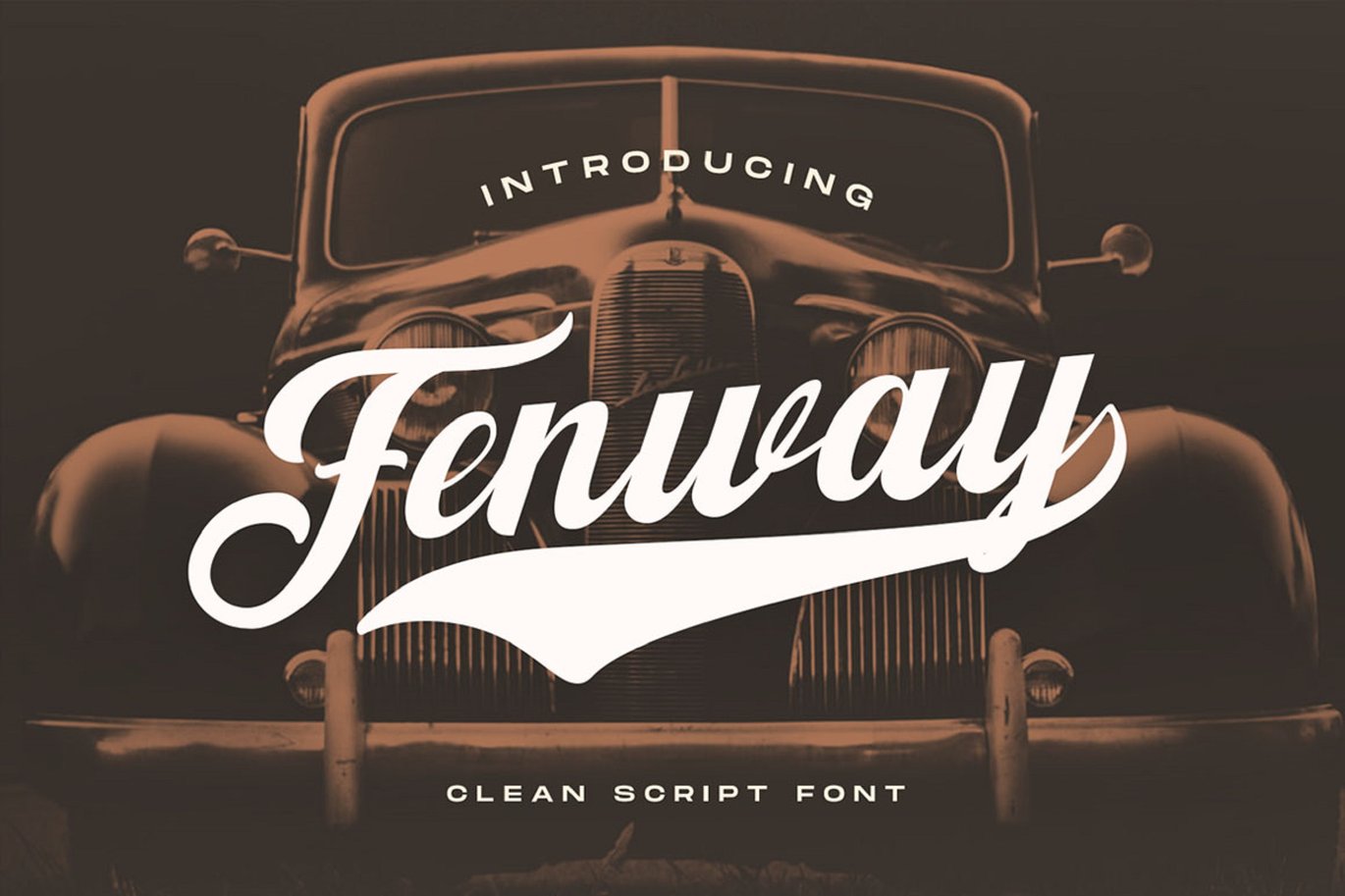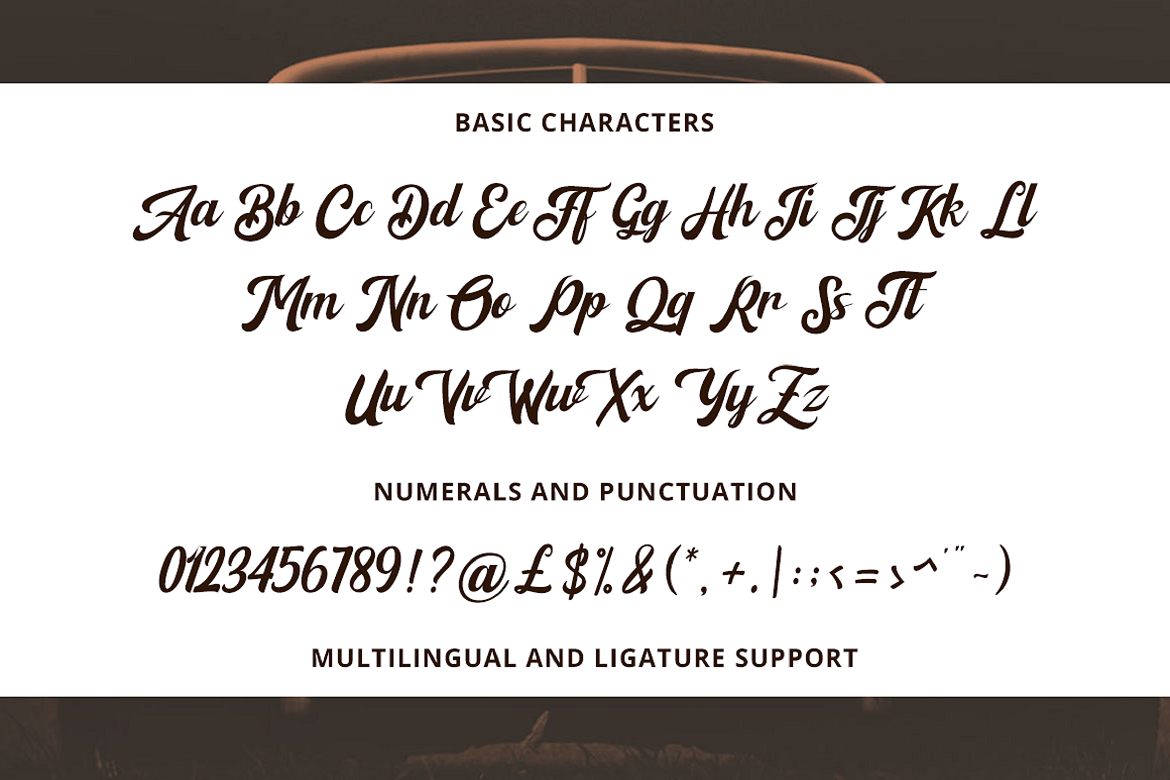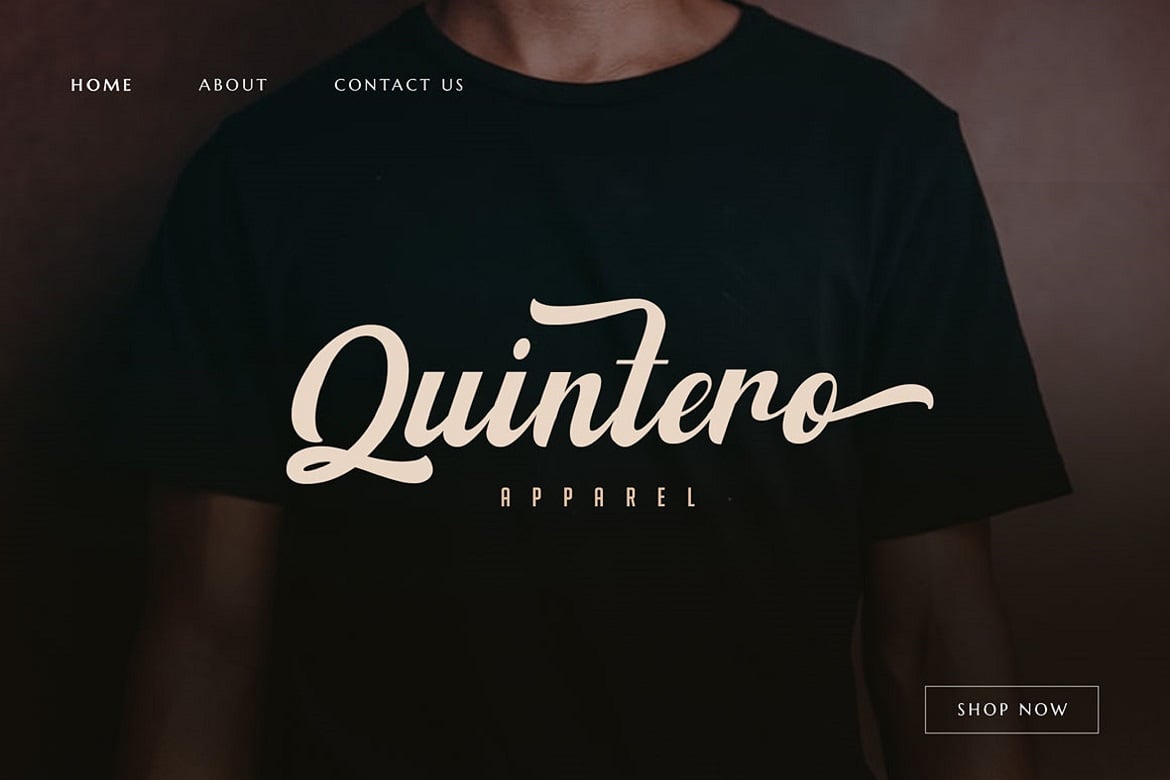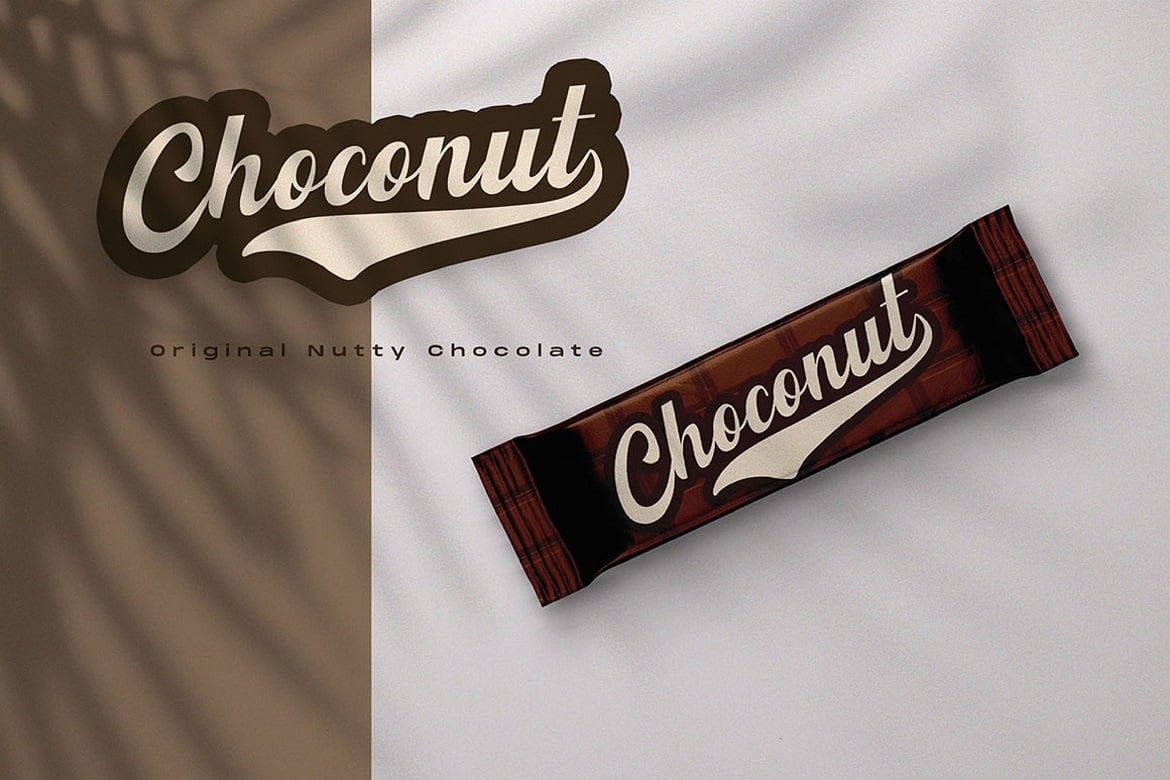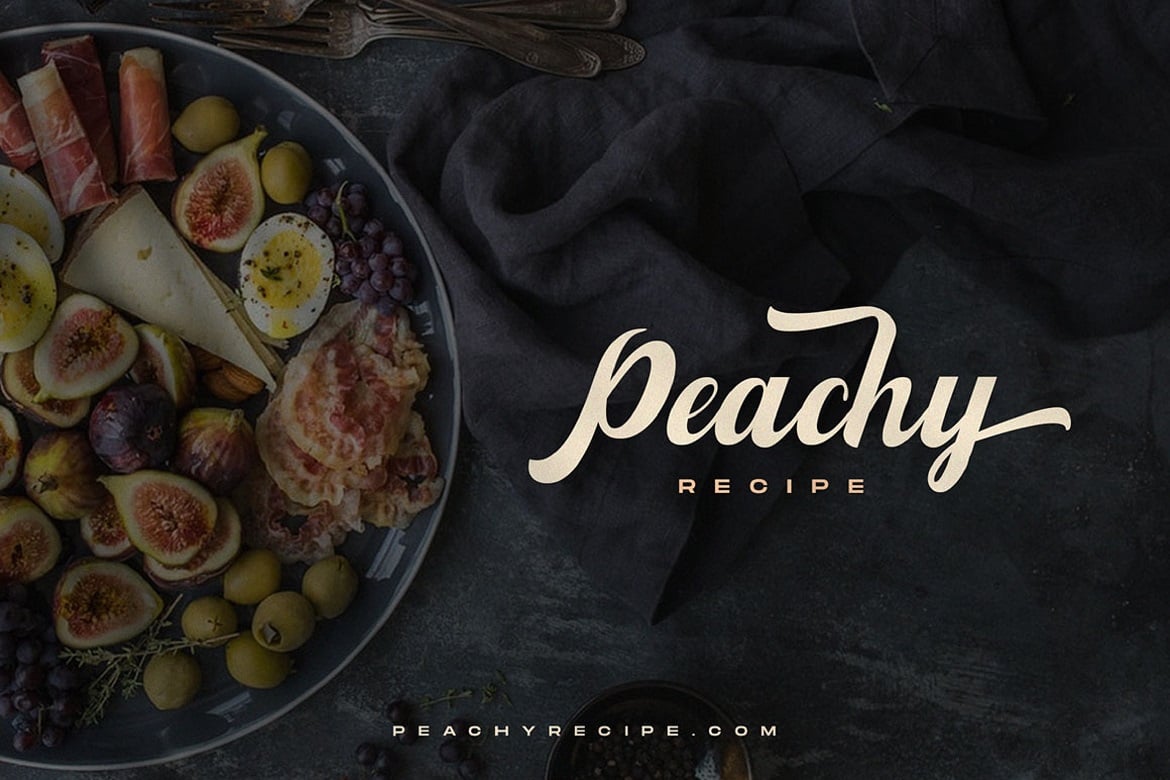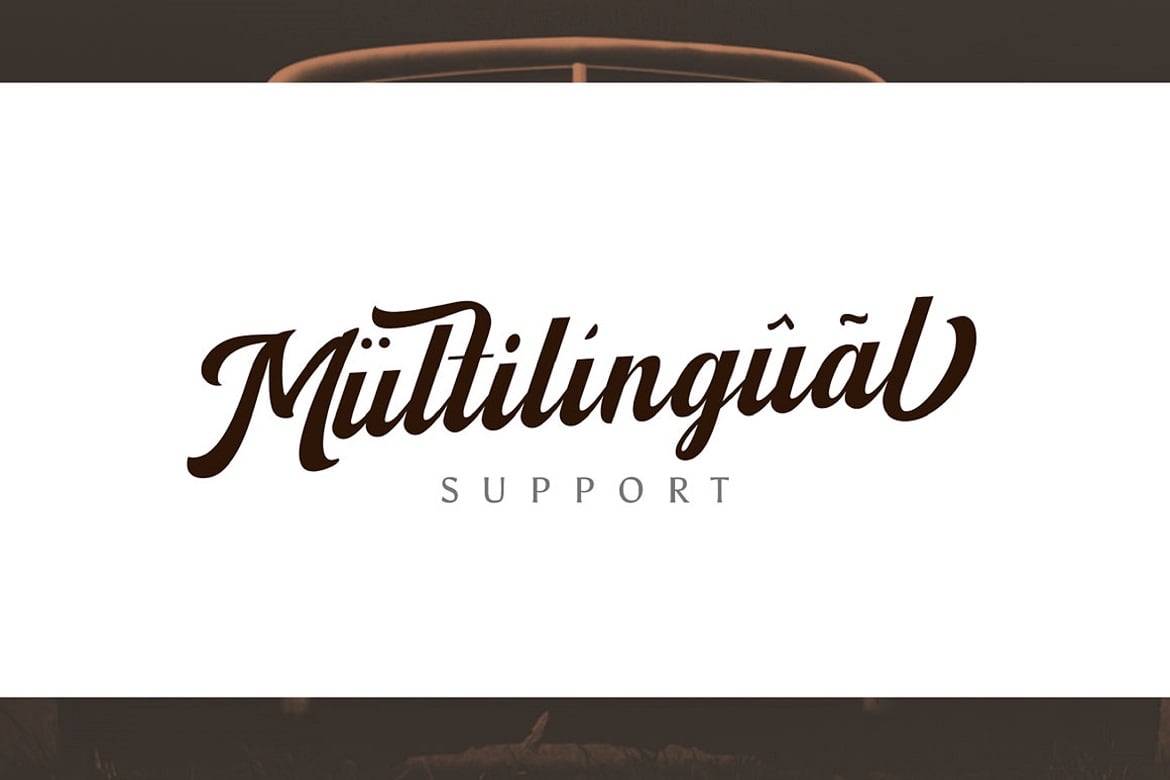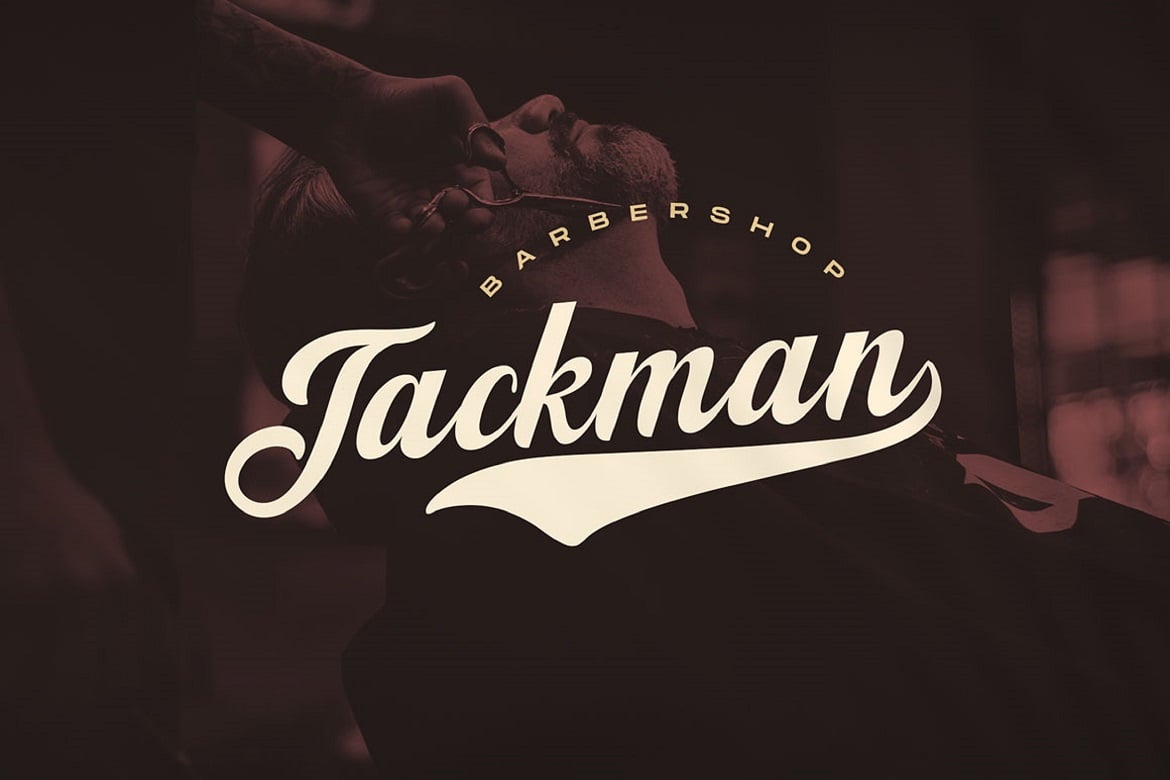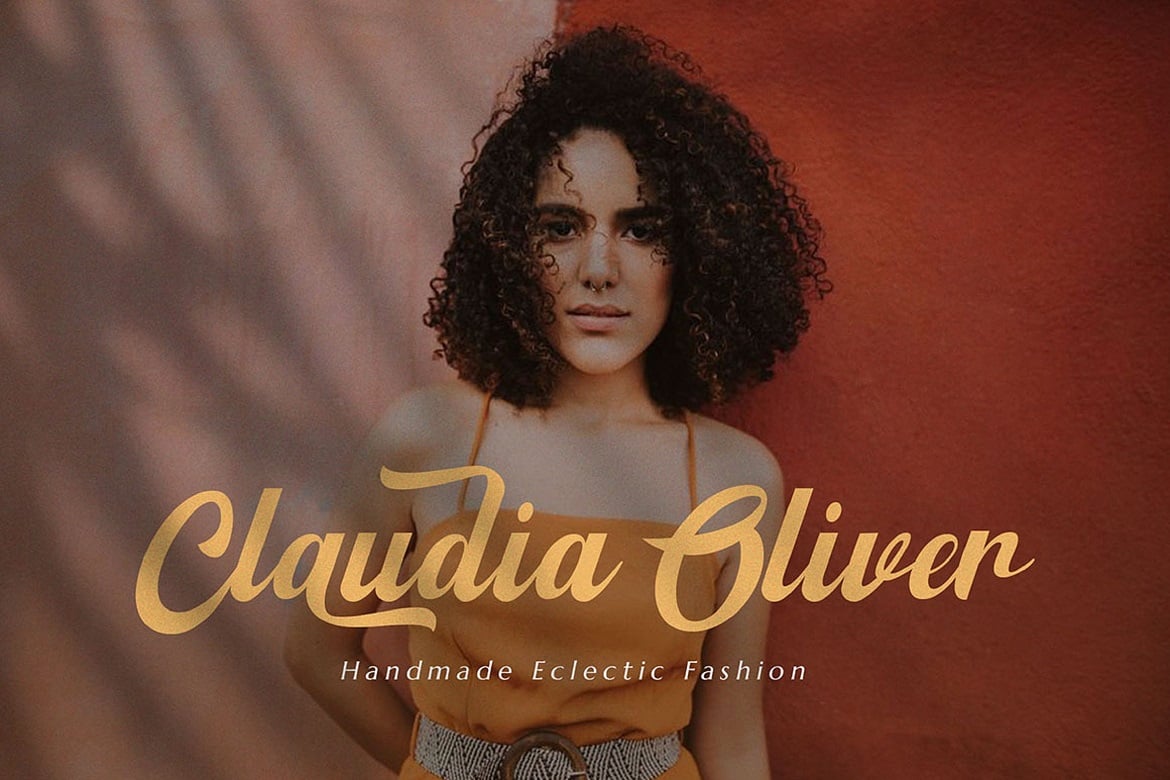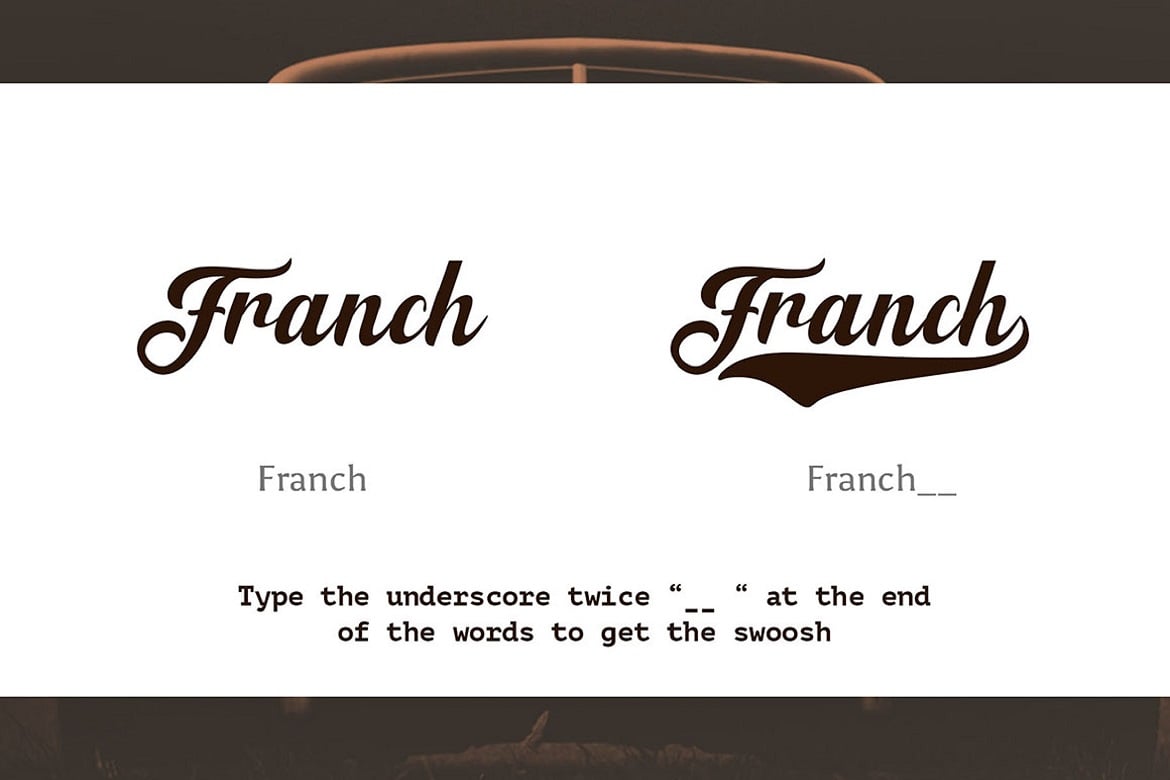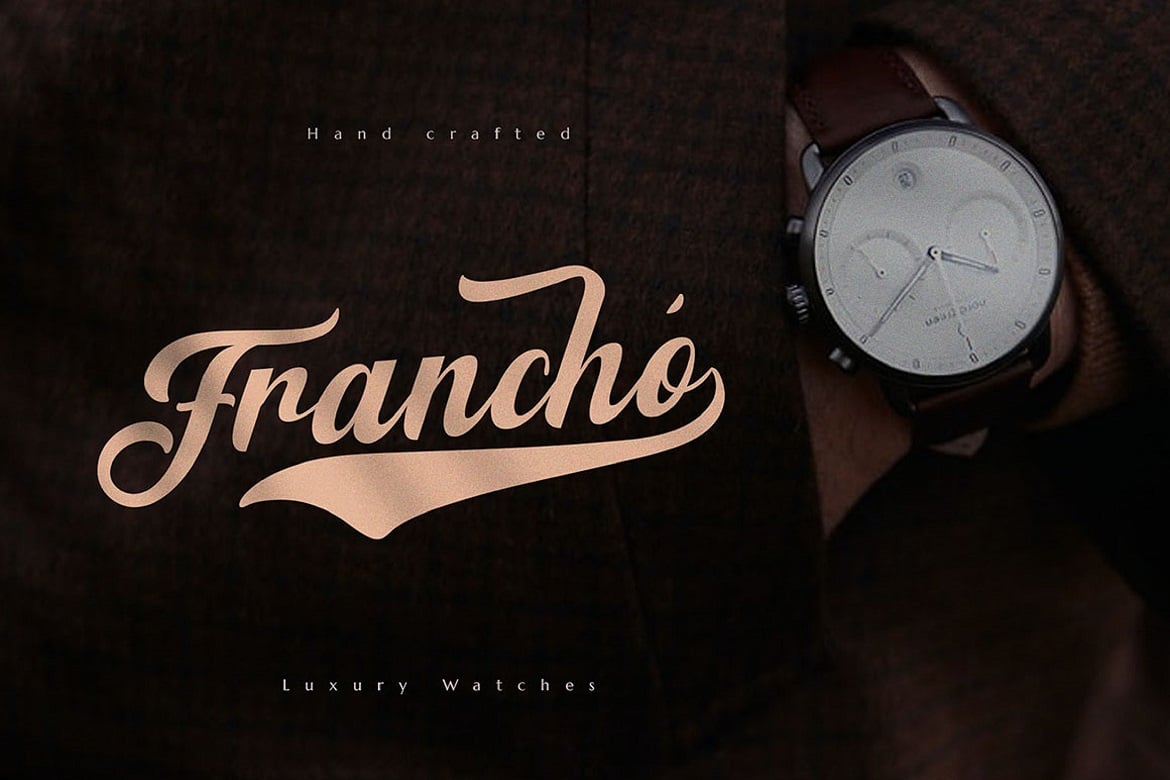
Fenway
Are you ready to delve into the rich depths of history? Are you ready to make your branding bold? Are you looking for a statement font that exudes prominence, style, and adventure?
Introducing Fenway – A Clean Script Font.
This clean script font can be used for a host of different content needs and projects. Use it to make your headings stand out, enhance your logos, style up your business cards, elevate your website and social media, and bring class, style, and history across all your channels.
Get ready to captivate, engage, and inspire your audience and clients with Fenway.
- Multilingual & Ligature Support
- Full sets of Punctuation and Numerals